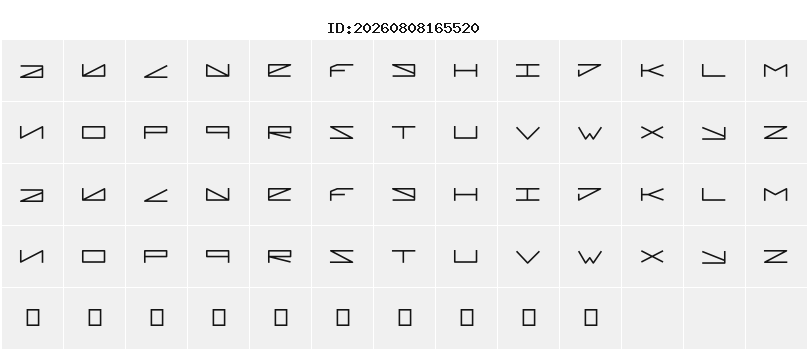
• Font Name: Pleiadian
• Full Font Name: Pleiadian
About Pleiadian.otf
Pleiadian.otf is a modern, elegant sans-serif font designed for ultimate readability and visual harmony. Perfect for branding, headlines, web design, and print materials.